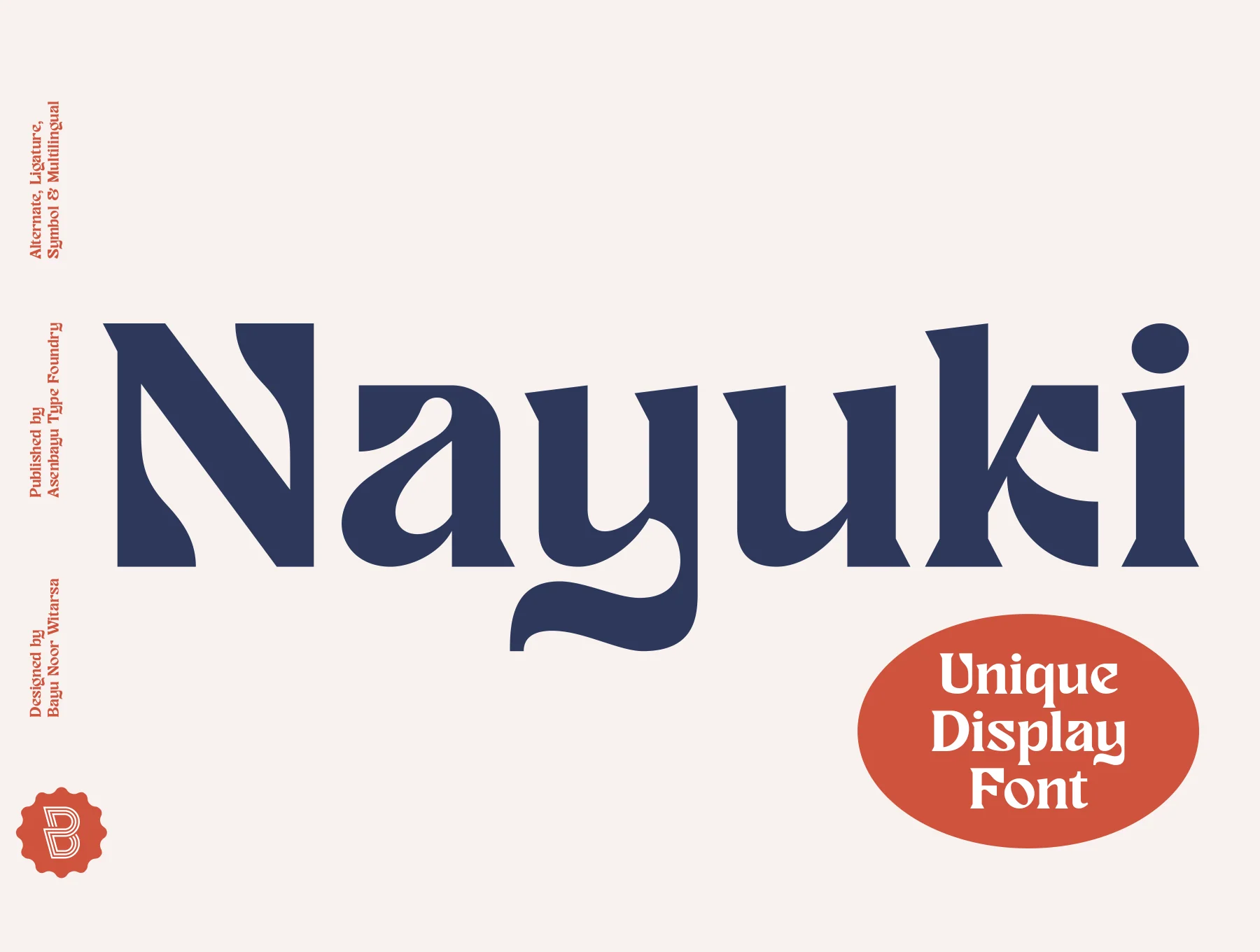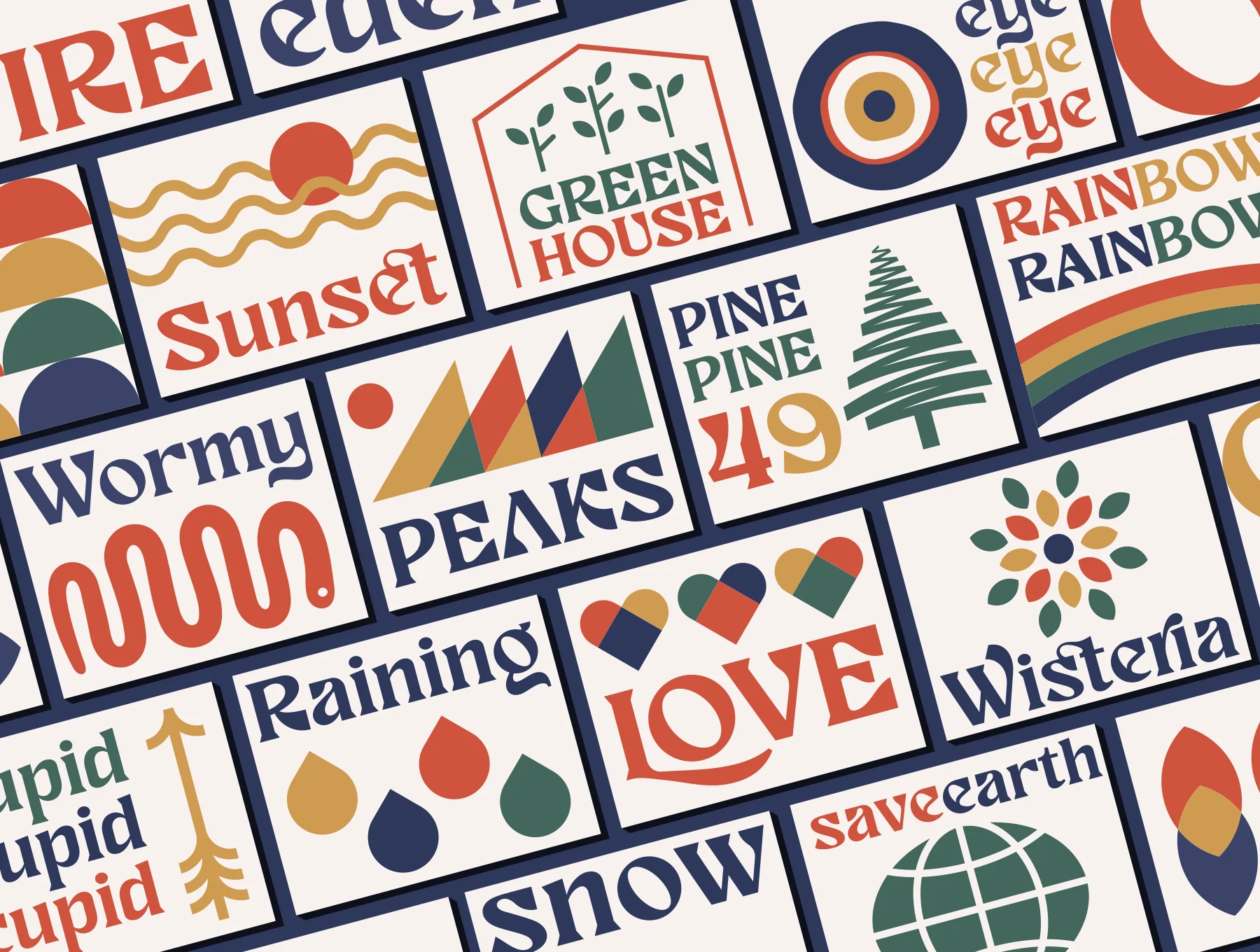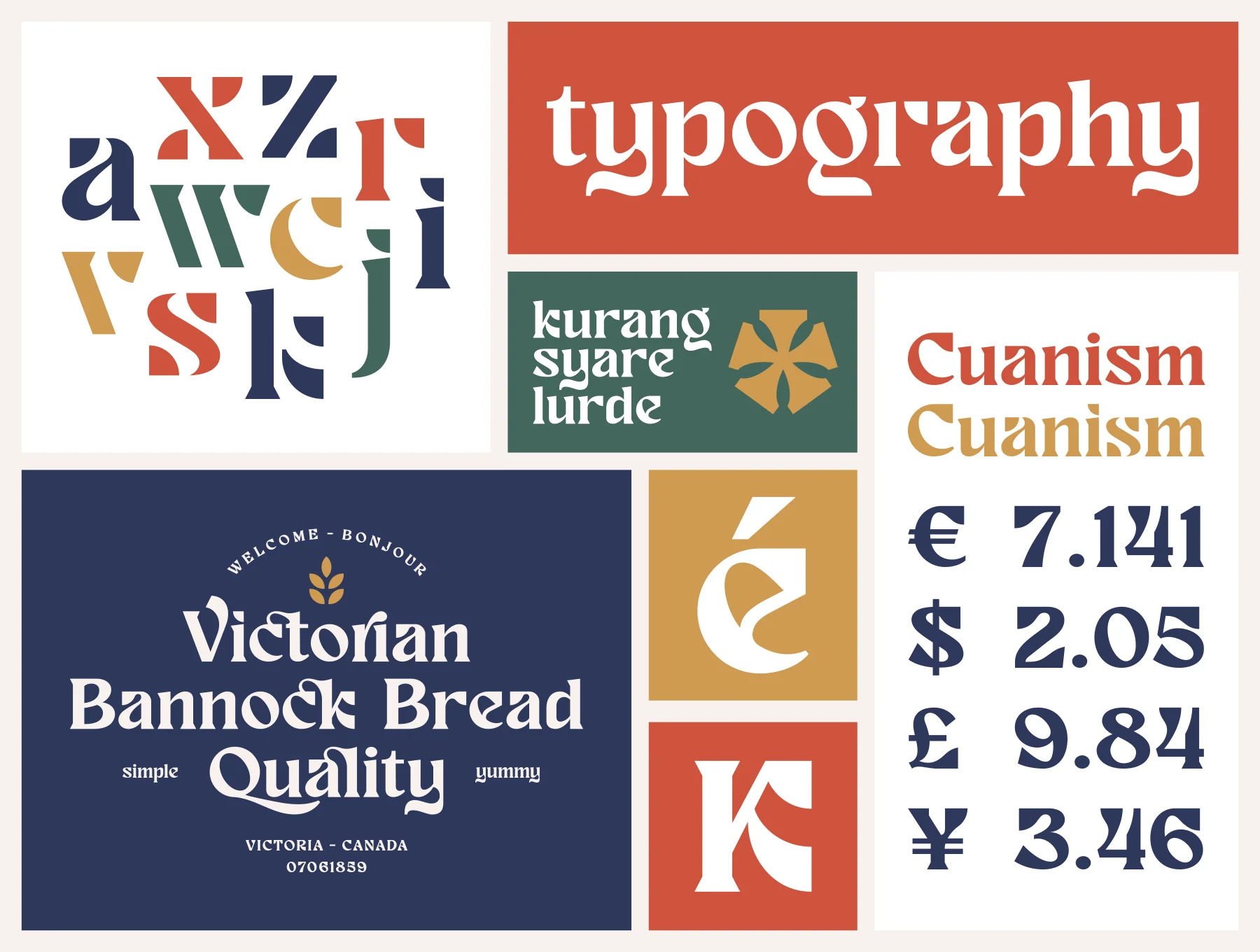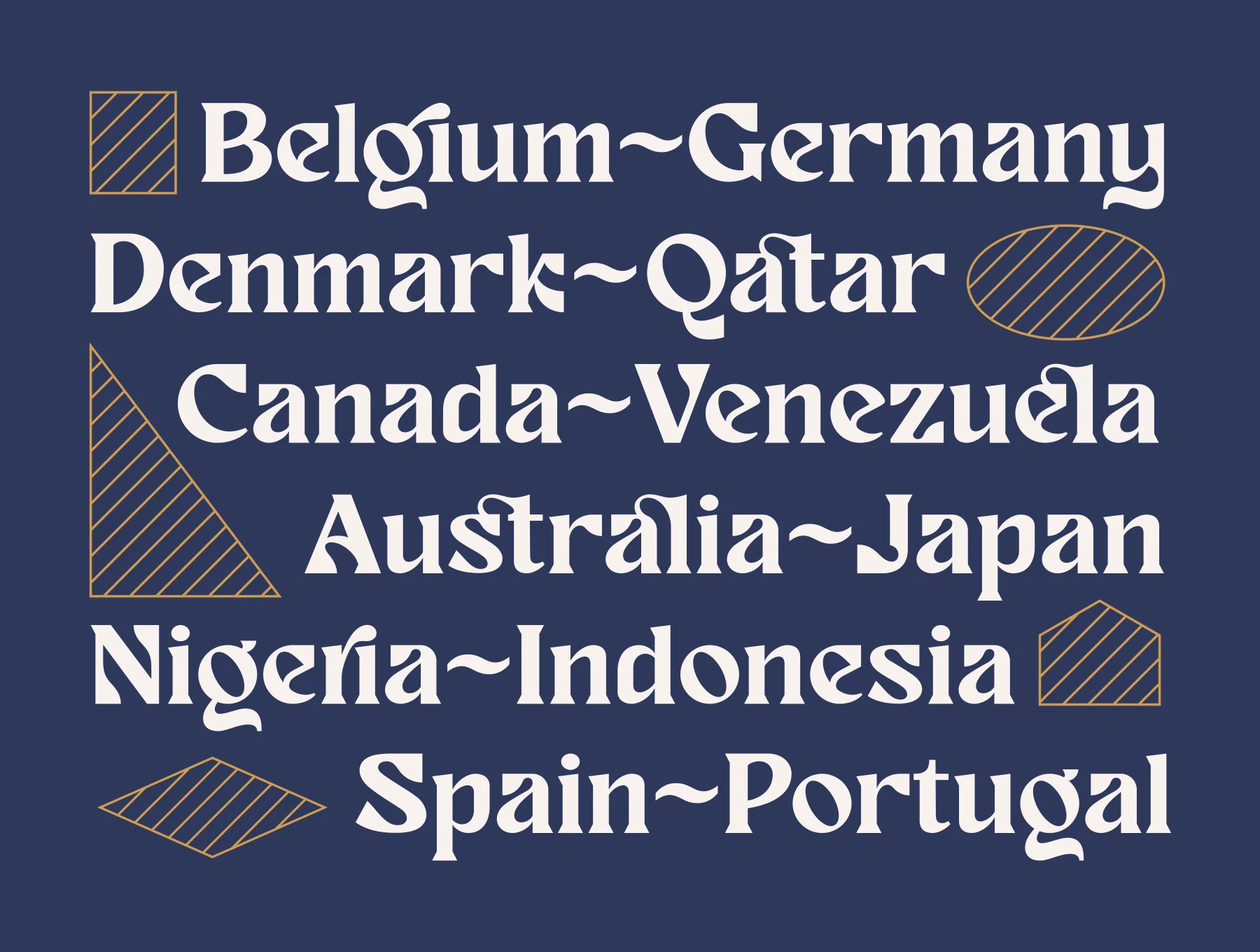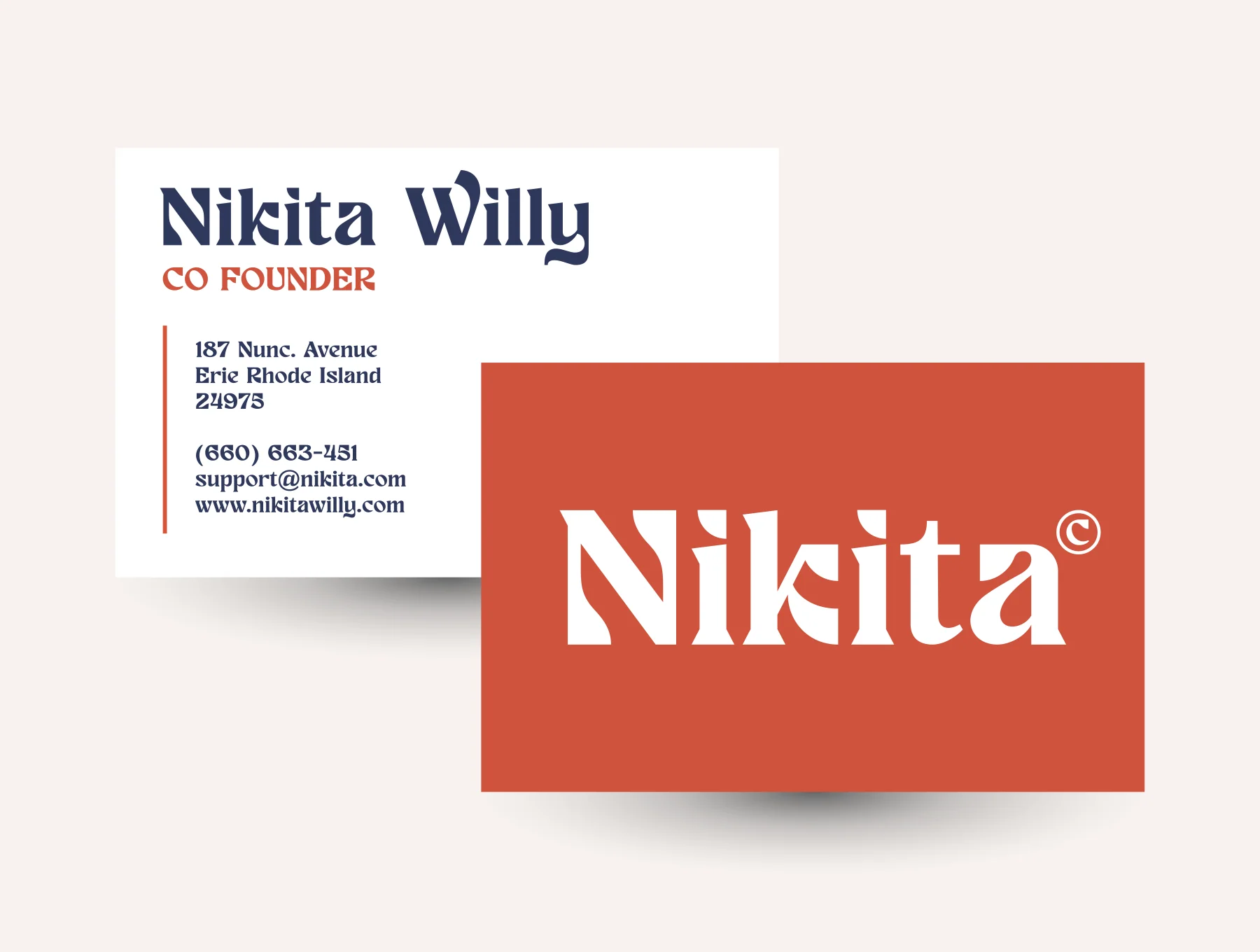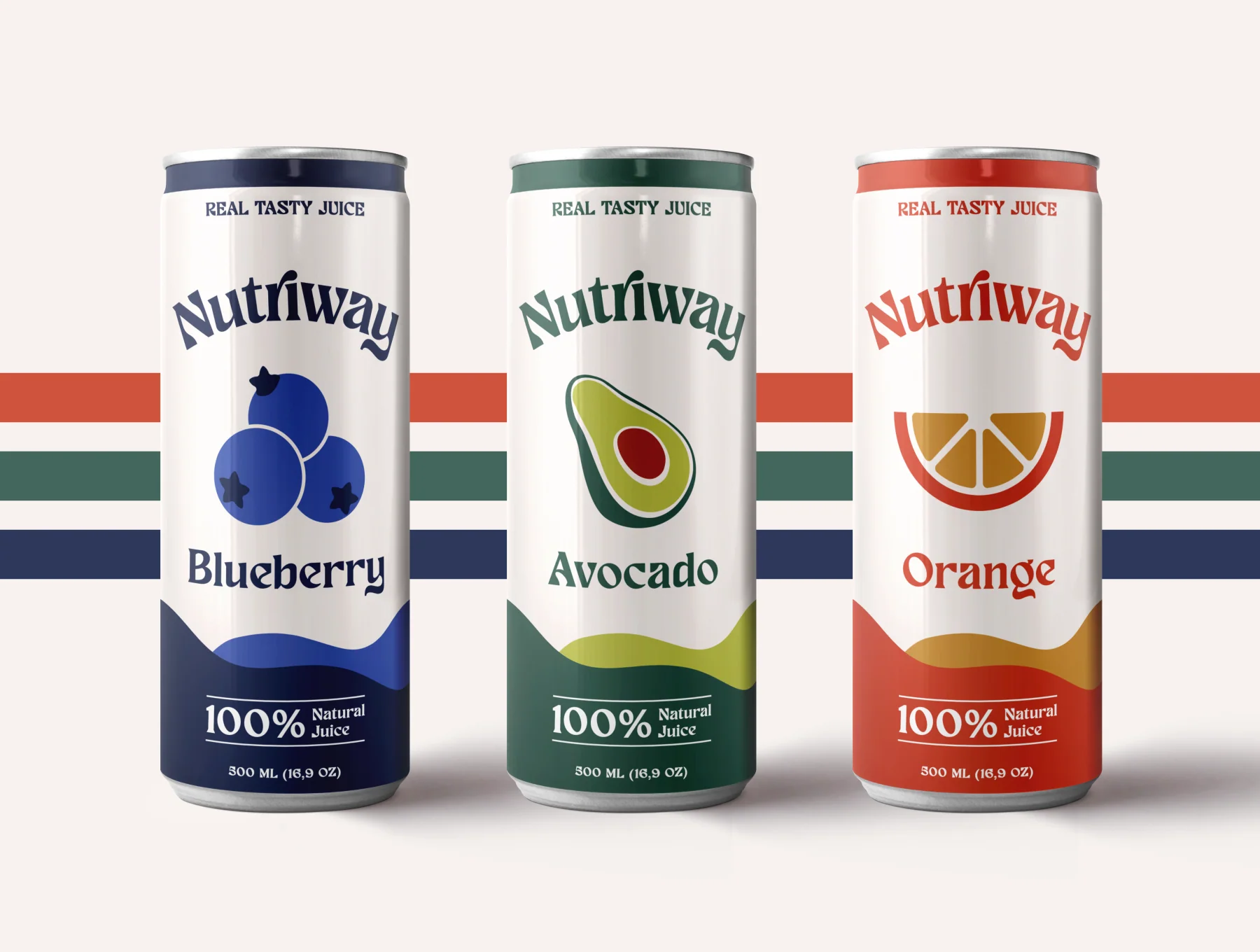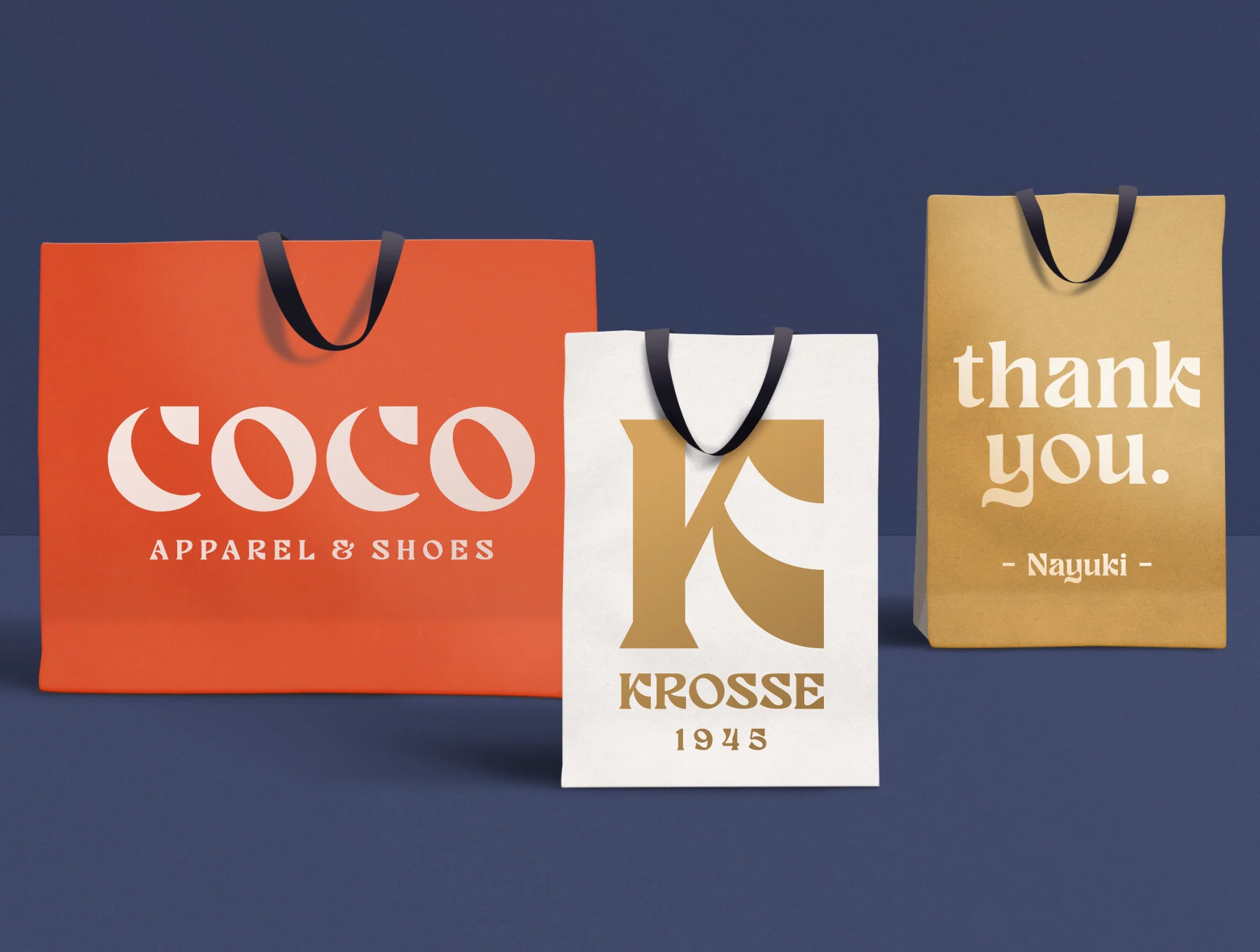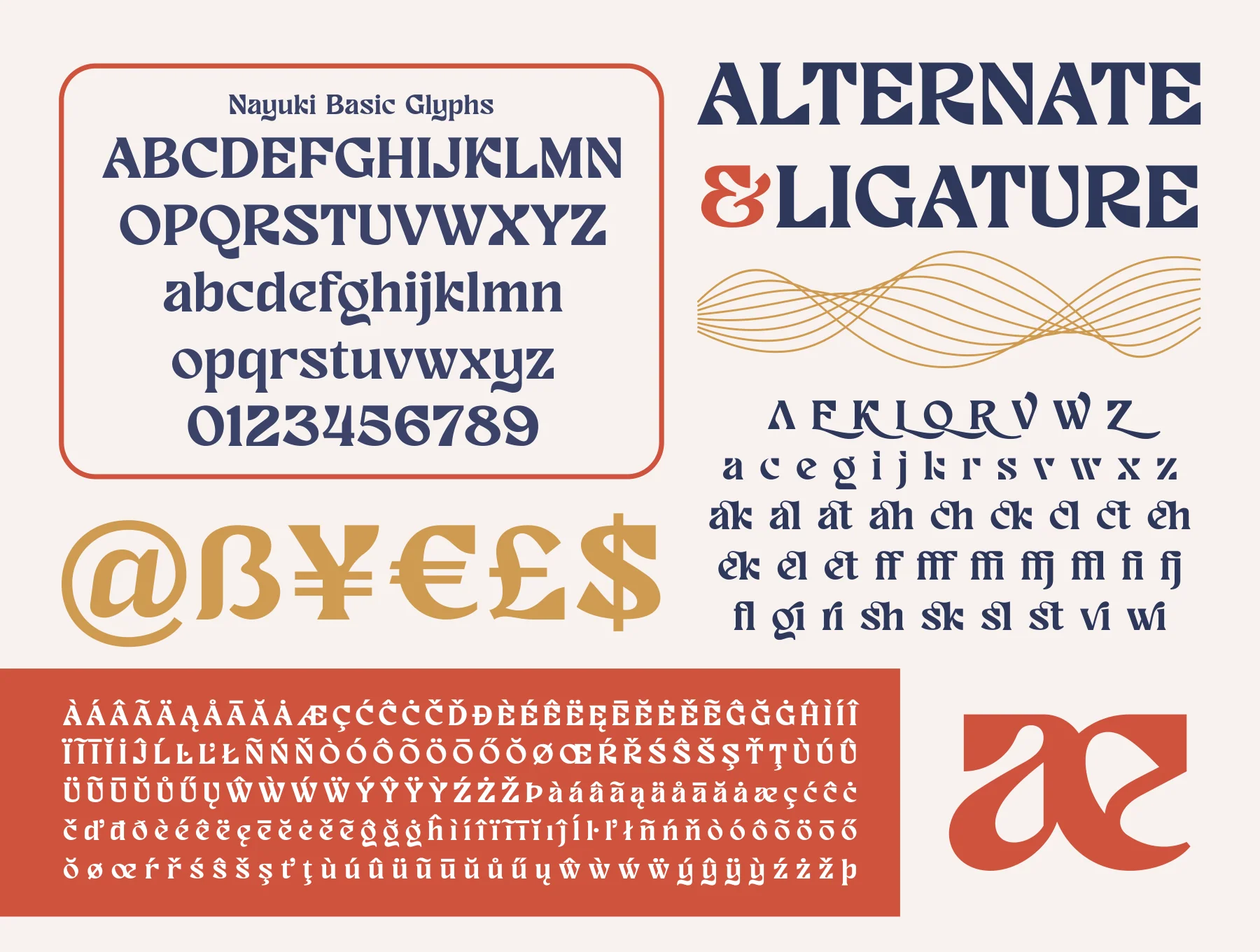
Nayuki Font
Distinctive Display Typeface
Regular Glyph Set
Capital and Small Letters
Decorative Alternates and Ligatures
Nayuki is a distinctive serif display typeface with bold, curved glyphs and a firm geometric structure. Its striking look suits retro, vintage, and modern designs. Alternate characters and ligatures make it ideal for logos, branding, products, labels, websites, posters, and more.